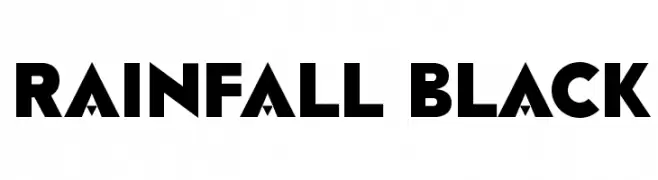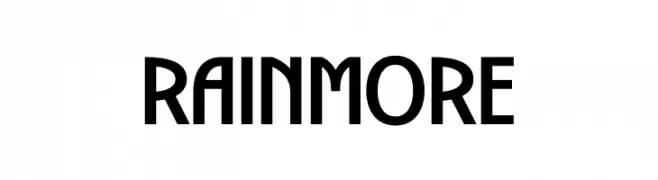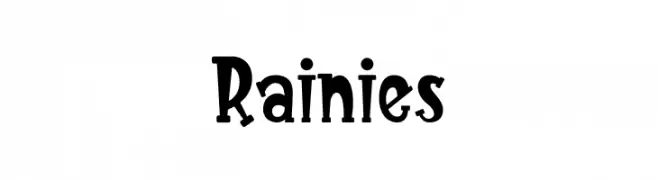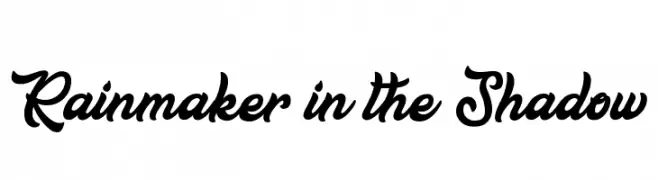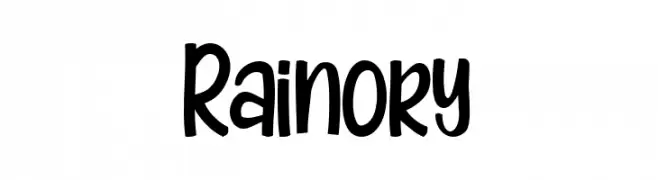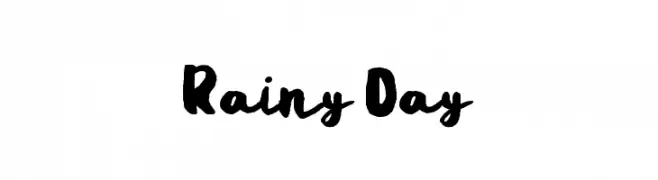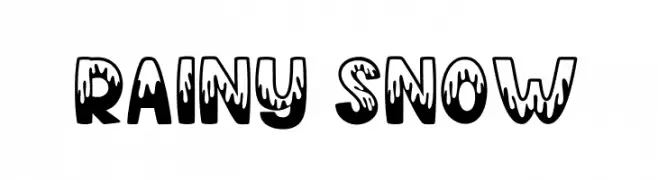
A playful, bold handwritten font with rounded edges and a casual style.
A playful, handwritten font with smooth curves and a casual style.
A bold, geometric font with strong lines and tight spacing.
A playful, whimsical font with exaggerated serifs and a hand-drawn look.
A bold, flowing script font with elegant, cursive letterforms and dynamic flourishes.
A modern, geometric font with a clean and uniform appearance.
A playful, bold handwritten font with rounded strokes and a casual feel.
A bold, playful font with a hand-drawn, cursive style.
A bold, rounded font with a playful, outlined style.
A bold, dripping effect font with a playful and creative style.